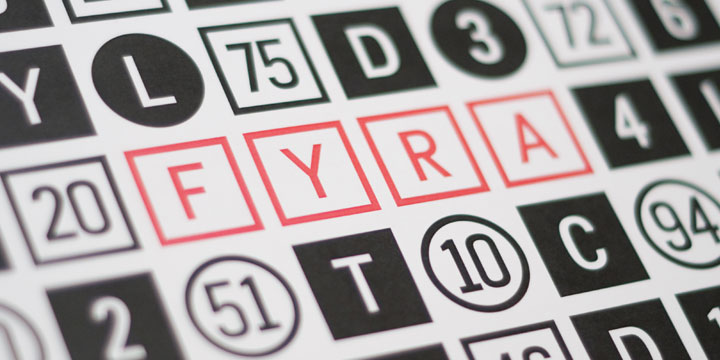
The Fyra Font is ideal for modern branding projects, corporate presentations, tech startups, website headers, mobile app interfaces, digital marketing materials, clean logo designs, minimalist posters, and contemporary editorial layouts that demand sophisticated typography.
What makes the Fyra Font so exciting is its perfect balance between geometric precision and humanistic warmth. This innovative typeface combines sharp, angular elements with subtle curves that create a distinctive contemporary aesthetic. The font's unique character lies in its ability to convey both technical professionalism and approachable friendliness, making it versatile enough for various design contexts while maintaining a strong, memorable personality that captures attention and enhances brand recognition.
The Fyra Font family includes light, regular, medium, bold, and black weights, along with their corresponding italic versions, offering designers a comprehensive toolkit for creating dynamic typographic hierarchies and sophisticated visual communication across multiple design applications.
Contemporary designers consistently choose Fyra Font Free Download for its exceptional readability and modern appeal. This cutting-edge typeface represents the evolution of digital typography, featuring carefully crafted letterforms that perform beautifully across all screen sizes and resolutions. Whether you're developing sleek user interfaces, creating impactful advertising campaigns, designing professional business materials, or building brand identities for forward-thinking companies, this font delivers outstanding visual performance.
The meticulously designed characters of the Fyra Font showcase clean lines, optimal spacing, and balanced proportions that ensure excellent legibility in both large display sizes and smaller text applications. The font's geometric foundation provides structural consistency while subtle humanistic touches add warmth and personality to the overall design.
Digital design professionals appreciate how this font adapts seamlessly to various contexts without losing its distinctive character. The comprehensive glyph set includes extensive language support, mathematical symbols, and special characters, making it suitable for international projects and technical documentation.
For brands seeking to establish a modern, trustworthy presence in today's competitive marketplace, the Fyra Font offers an ideal typography solution. Its clean aesthetics and professional quality make it particularly suitable for technology companies, financial services, healthcare organizations, and any business that values clarity and innovation.
The font's optimization for digital environments ensures crisp rendering across web browsers, mobile devices, and high-resolution displays, while its versatile weight range provides flexibility for creating effective visual hierarchies that guide reader attention and improve user experience in both print and digital applications.